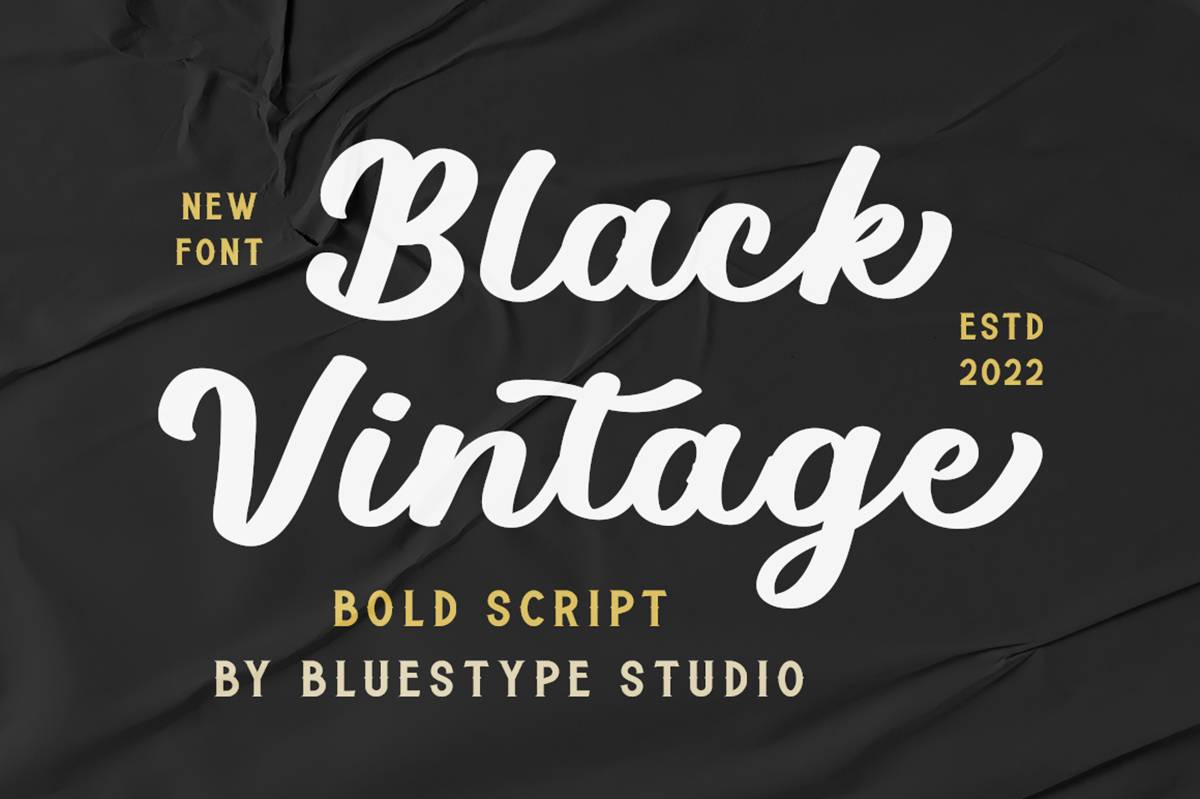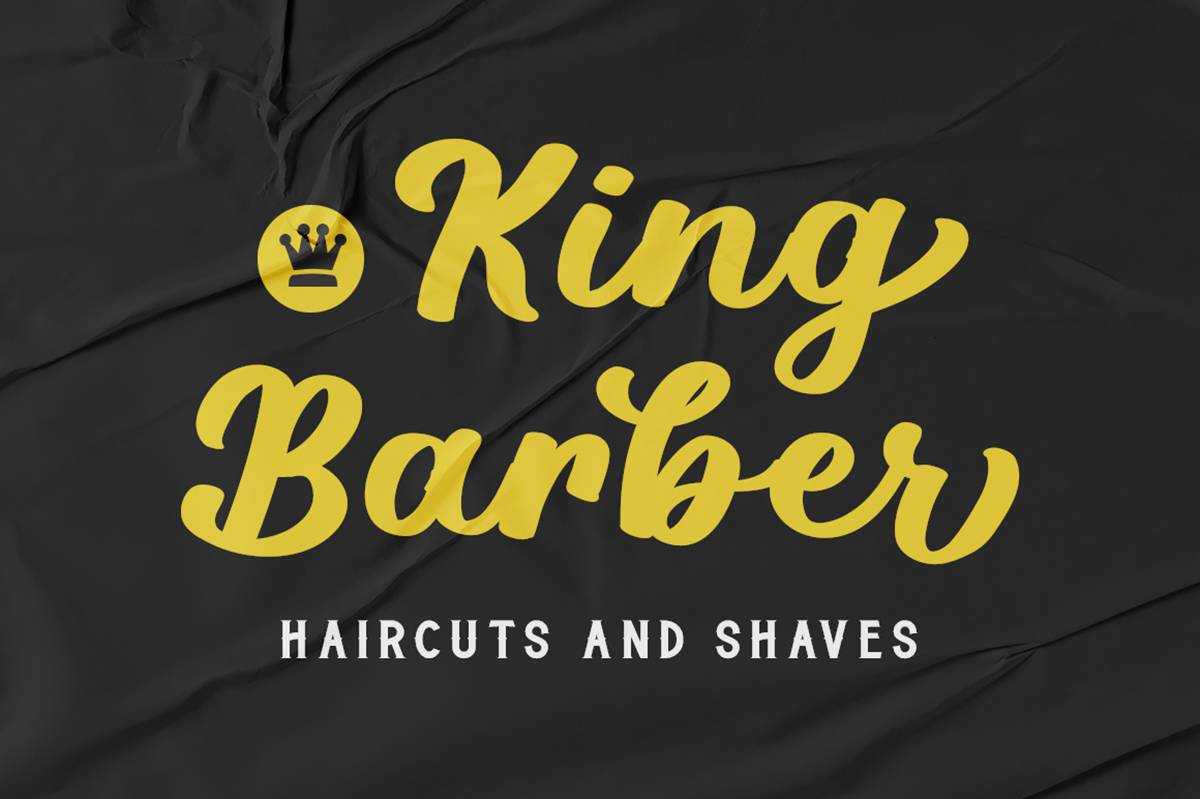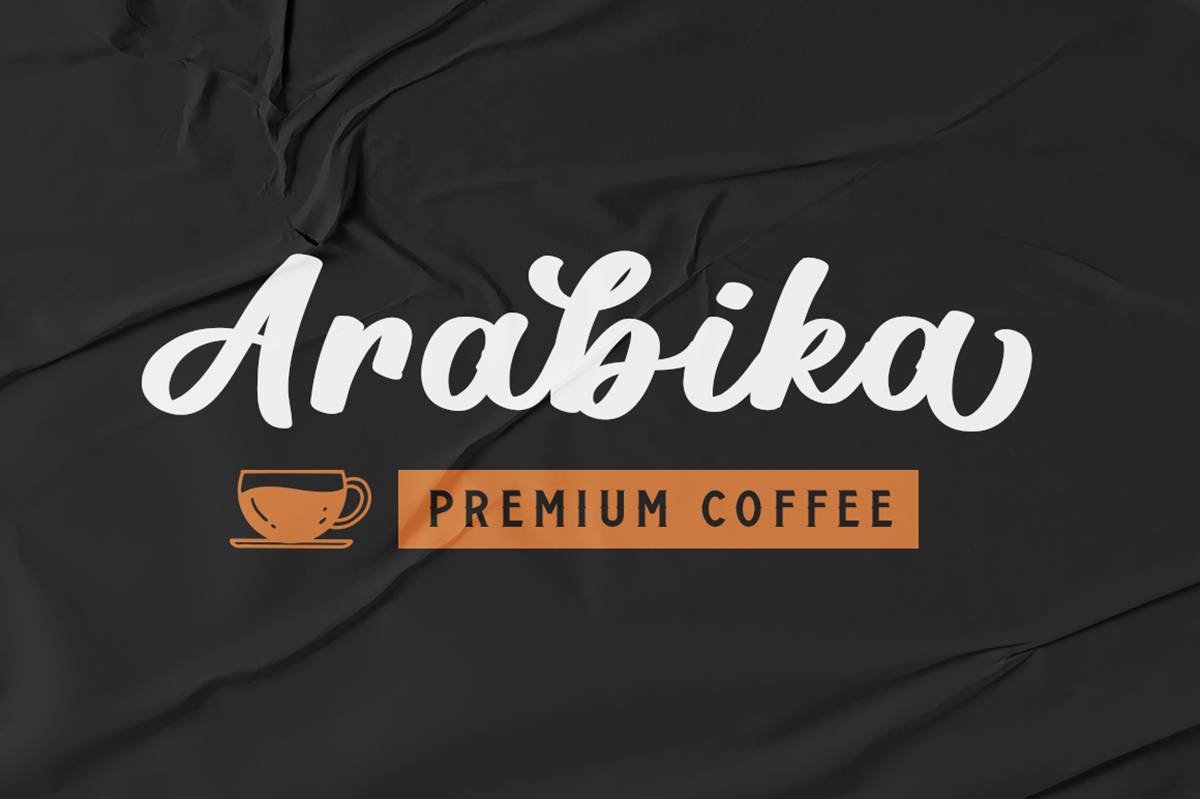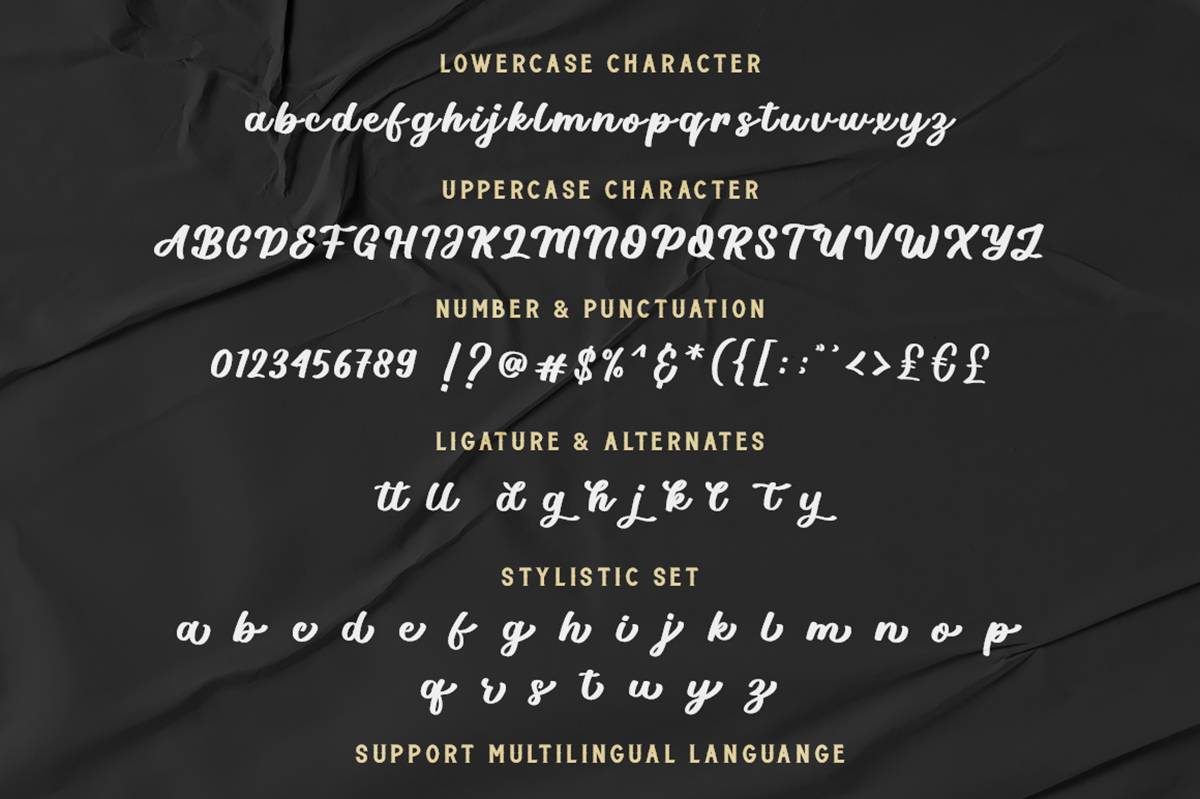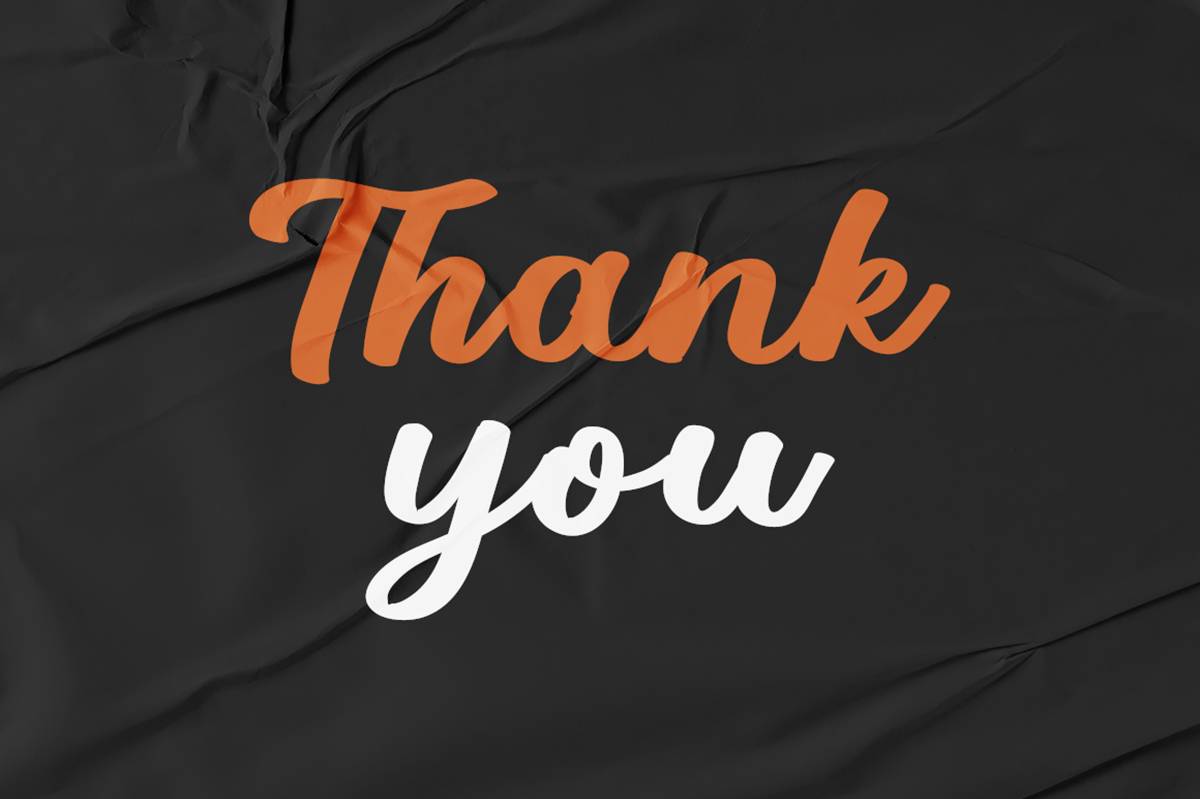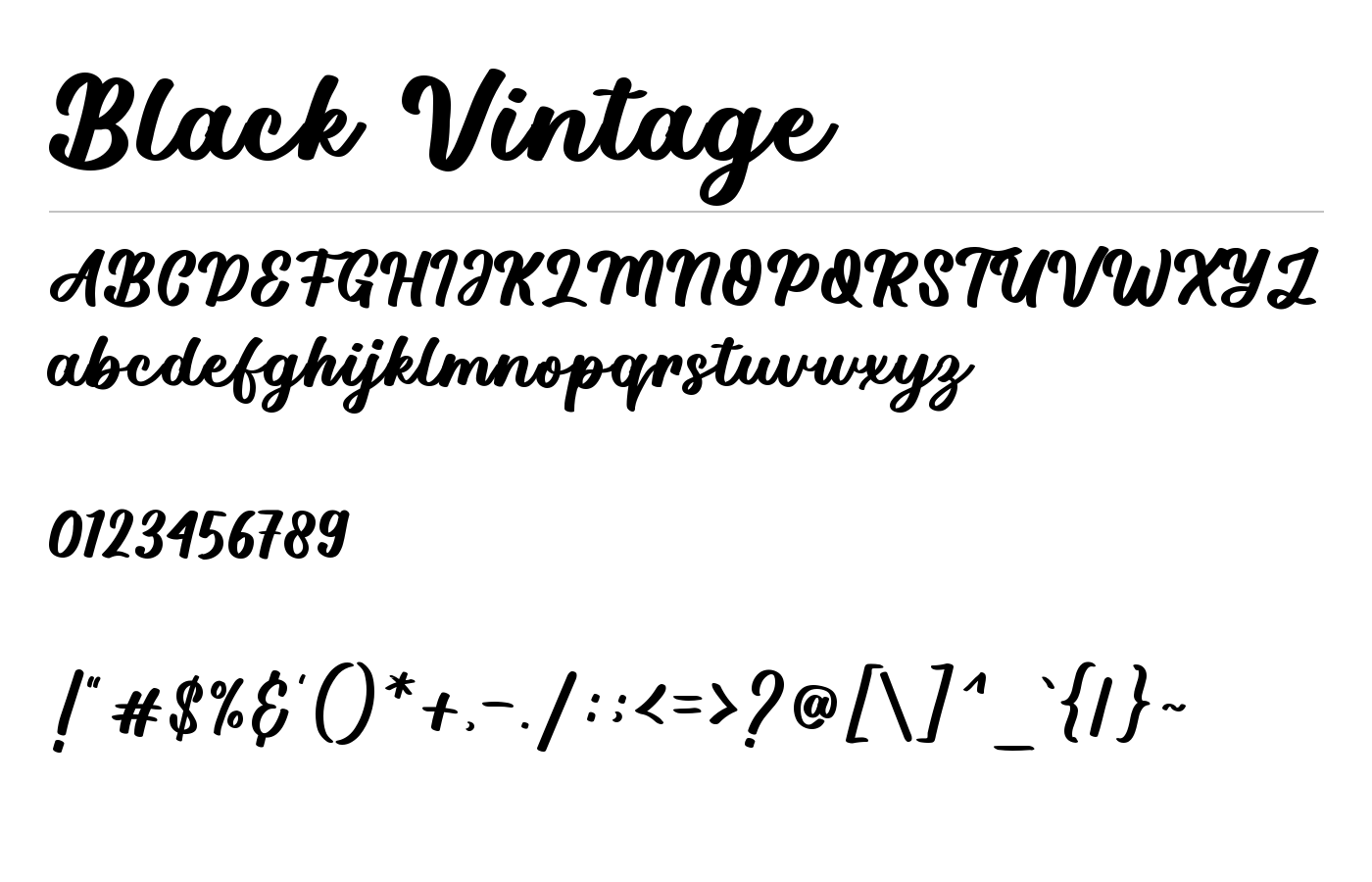
Black Vintage is a bold, cursive script font that combines a classic vintage feel with smooth, rounded strokes and consistent weight, creating a friendly yet elegant personality. Its flowing letterforms and moderate x-height make it ideal for branding, logos, and packaging that seek to evoke nostalgia, warmth, and charm, especially in lifestyle and fashion contexts. This font works well in headlines and display use where a touch of retro sophistication is desired.
Black Vintage Font
About Black Vintage Font